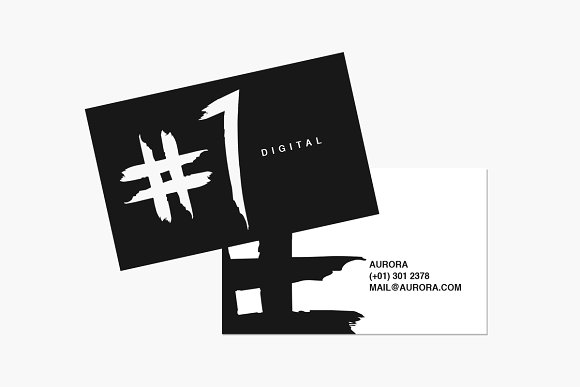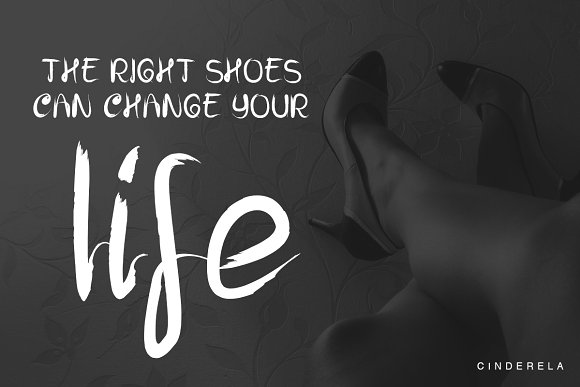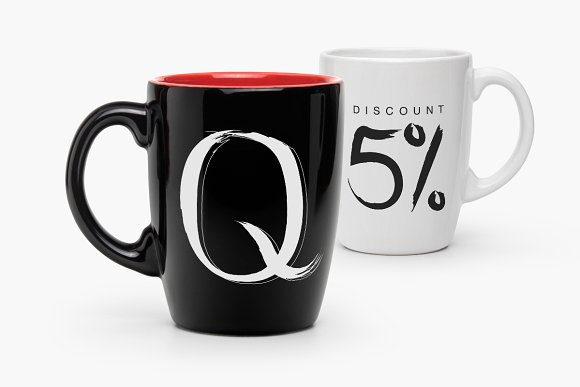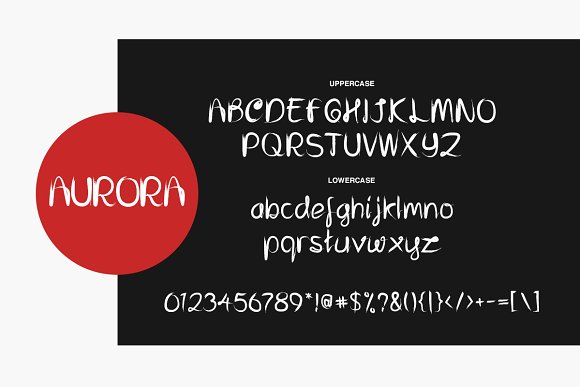
Aurora Font: Elevate Your Designs with Elegant Script Typography
In the world of typography, few fonts manage to capture the essence of elegance and sophistication as effectively as the Aurora Font Trio. This stunning script font, designed with a unique calligraphy style, is a game-changer for designers and crafters looking to add a touch of luxury to their projects. The Aurora Font Trio is not just a font; it’s a versatile tool that comes in three distinct versions: regular, light, and alternate, offering a range of creative possibilities.
The Unique Charm of Aurora Font
The Aurora Font Trio stands out from the crowd with its beautiful, flowing script that exudes elegance and refinement. Each letter is meticulously crafted to ensure a harmonious flow, making it perfect for projects that demand a high level of sophistication. Whether you’re working on a branding project, a wedding invitation, or a packaging design, the Aurora Font Trio can elevate your work to new heights.
Three Versatile Styles for Endless Creativity
One of the key advantages of the Aurora Font Trio is its versatility. The three versions – regular, light, and alternate – offer a range of options for designers and crafters. The regular version provides a solid foundation for most projects, with a balanced weight that works well in a variety of applications. The light version offers a more subtle approach, ideal for designs that require a softer touch. Meanwhile, the alternate version adds a unique twist, with variations that can add an extra layer of personality to your work.
The Aurora Font Trio’s versatility makes it suitable for a wide range of projects. Here are a few examples of how you can use this stunning script font:
- Branding and Logo Design: Create a lasting impression with a logo that exudes elegance and sophistication.
- Wedding Invitations and Stationery: Add a touch of luxury to your wedding invitations, save-the-date cards, and other stationery.
- Packaging Design: Elevate your product packaging with a font that communicates quality and refinement.
- Web Design: Use the Aurora Font Trio to create a visually appealing website that reflects your brand’s personality.
Why Choose Aurora Font?
With so many fonts available, why choose the Aurora Font Trio? Here are a few compelling reasons:
- Unique Calligraphy Style: The Aurora Font Trio boasts a distinctive calligraphy style that’s sure to set your designs apart.
- High-Quality Design: Each letter is meticulously crafted to ensure a high level of quality and attention to detail.
- Versatility: The three versions offer a range of creative possibilities, making it suitable for a wide range of projects.
The Aurora Font Trio is a stunning script font that offers a unique blend of elegance, sophistication, and versatility. With its three distinct versions, regular, light, and alternate, this font trio is perfect for designers and crafters looking to elevate their designs. Whether you’re working on a branding project, a wedding invitation, or a packaging design, the Aurora Font Trio is sure to make a lasting impression. So why settle for ordinary typography when you can have a font that truly shines? Choose the Aurora Font Trio today and discover a world of creative possibilities.